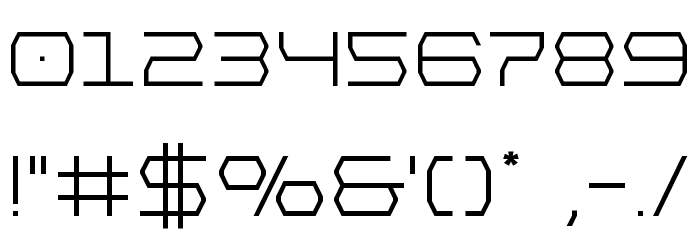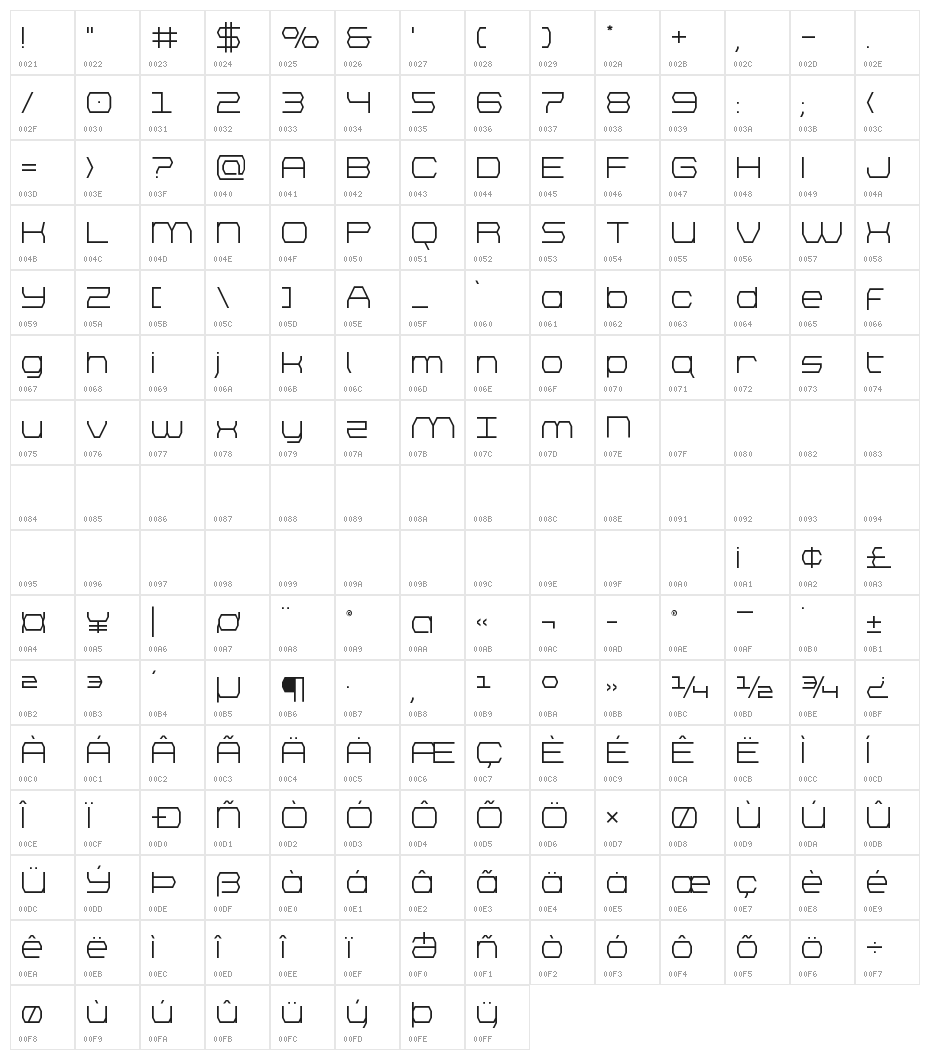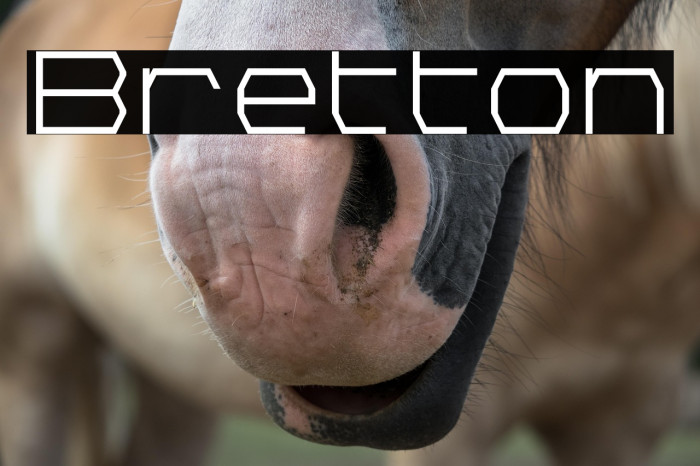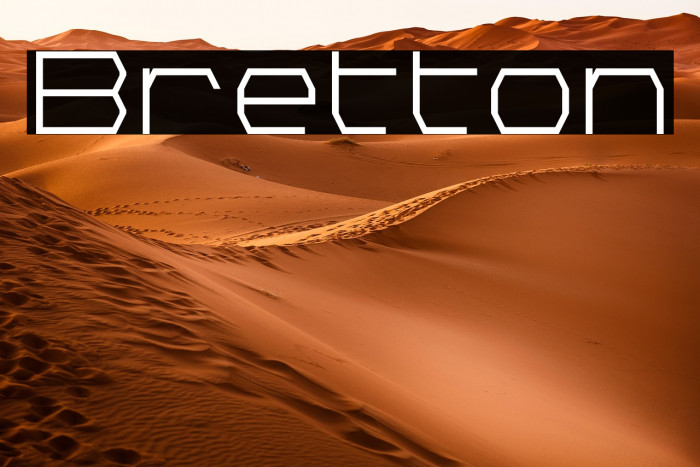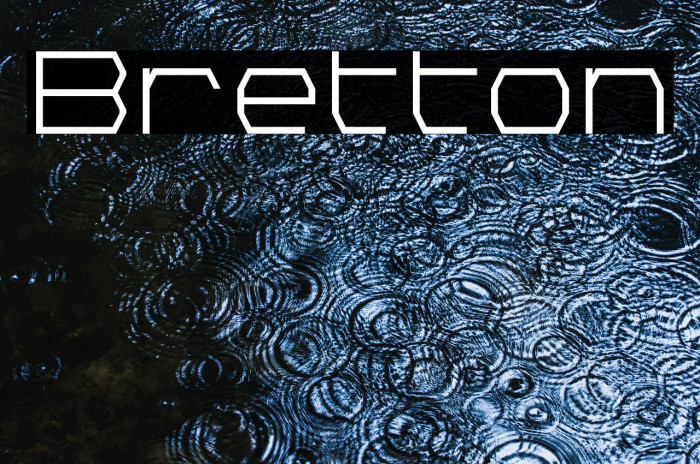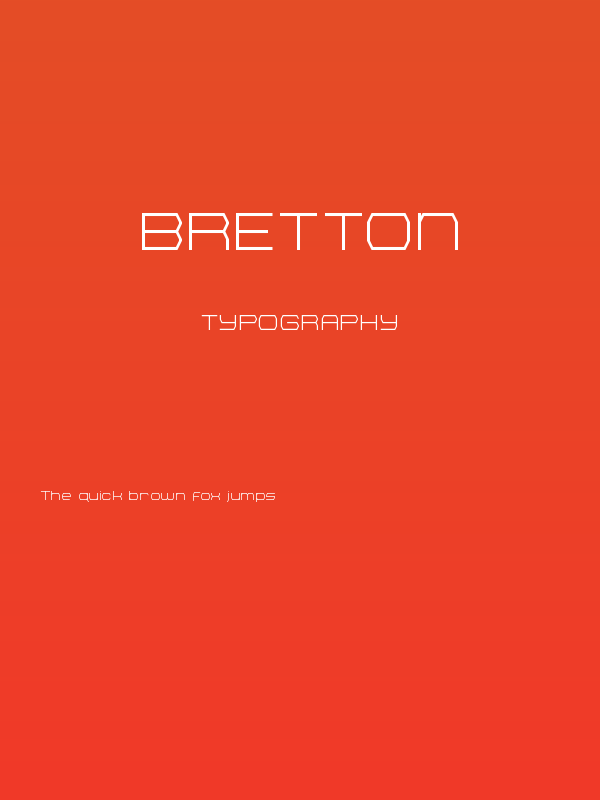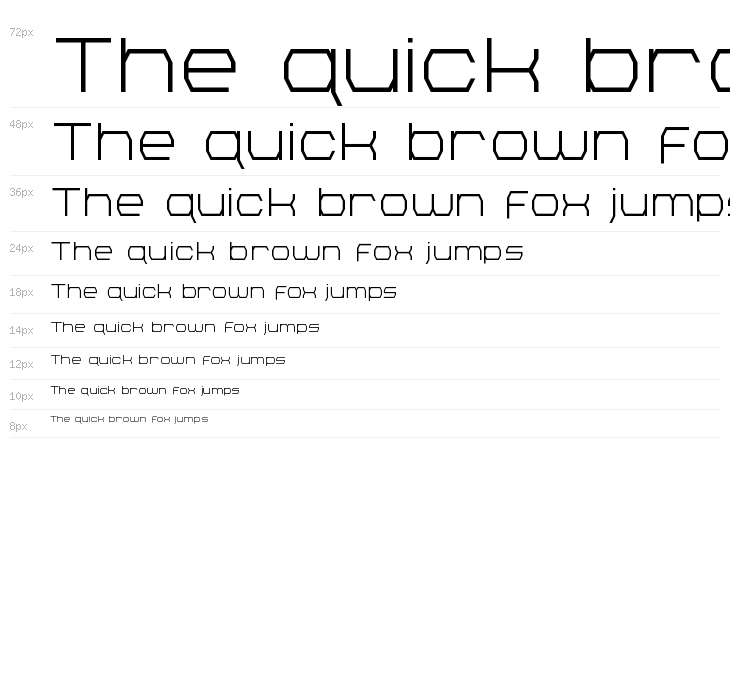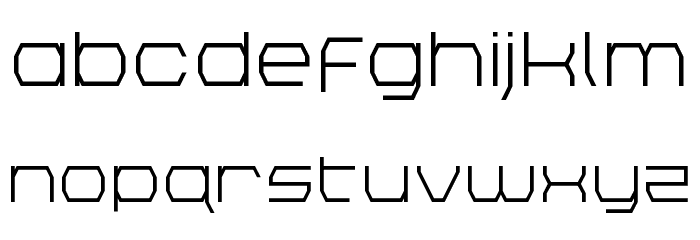
Bretton Font
Bretton Description
This font features a geometric and modern design, characterized by its angular and structured letterforms. Each character is crafted with precision, displaying a futuristic aesthetic that is both clean and distinctive. The uppercase and lowercase letters maintain a consistent style, with sharp edges and a uniform stroke width that gives the font a cohesive appearance. The numerals and special characters follow the same design principles, ensuring a harmonious look across all text elements. This font's unique style makes it ideal for projects that require a contemporary and tech-inspired feel.
| Proposed Projects | Ideal for technology branding, modern posters, digital interfaces, and futuristic designs. |